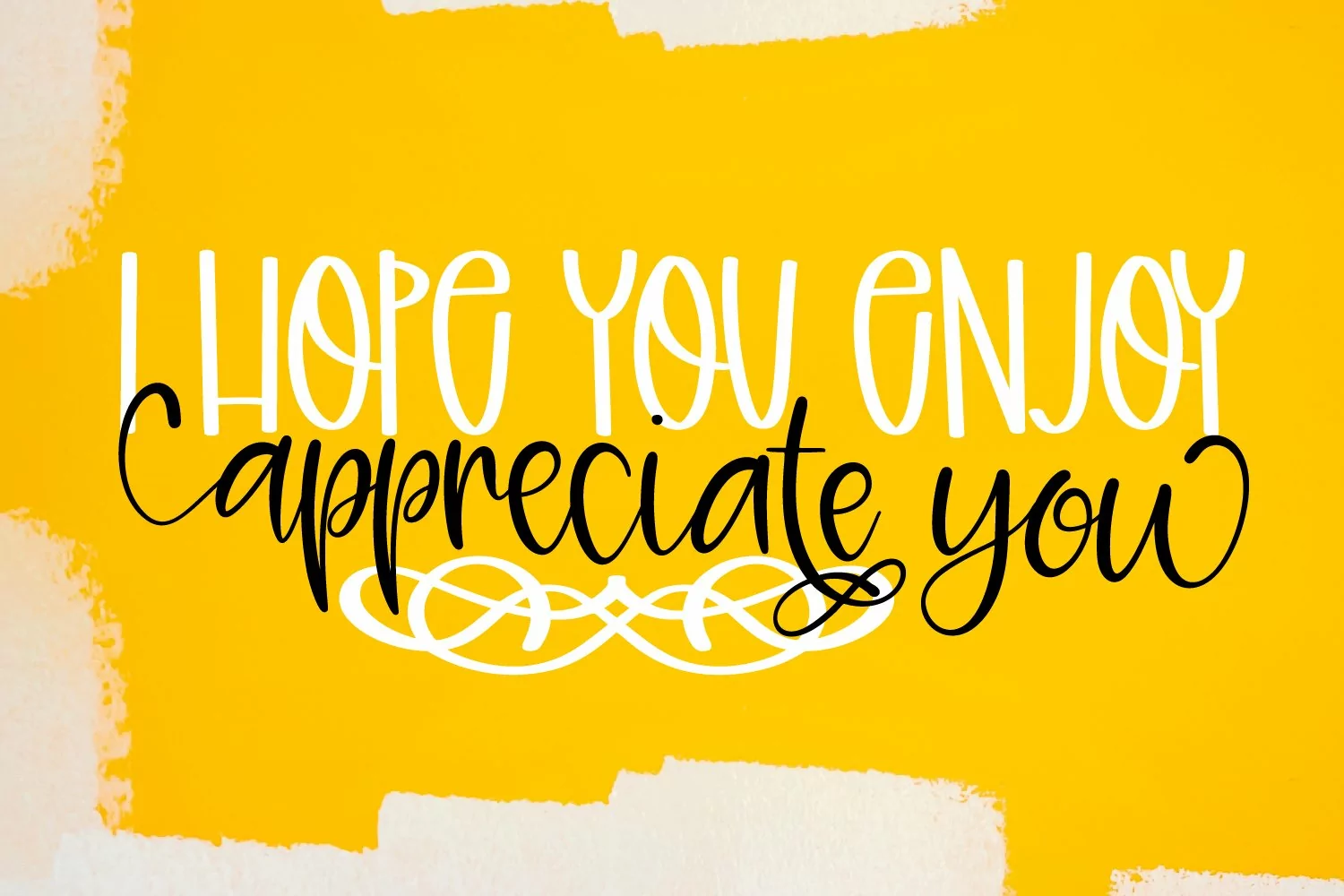
Kentucky features 3 fun fonts -
A sans serif - This is "Glamourous" renamed, you can also purchase this font individually by searching the title.
A script with 4 alternatives per lower case letter, making it easy to customize
A doodle print with a ton of flourish-y decorations